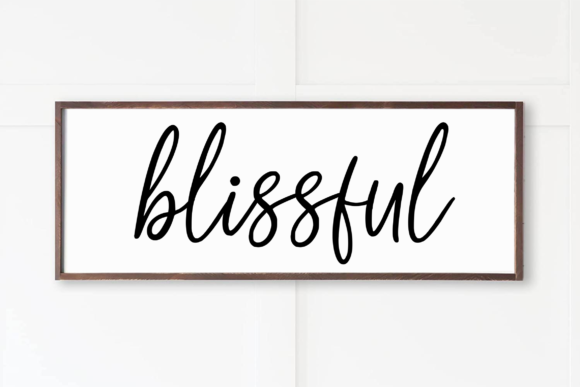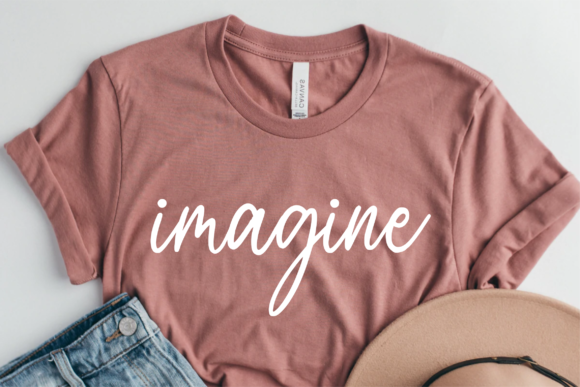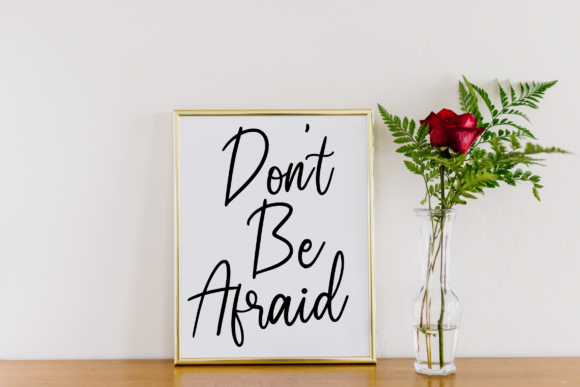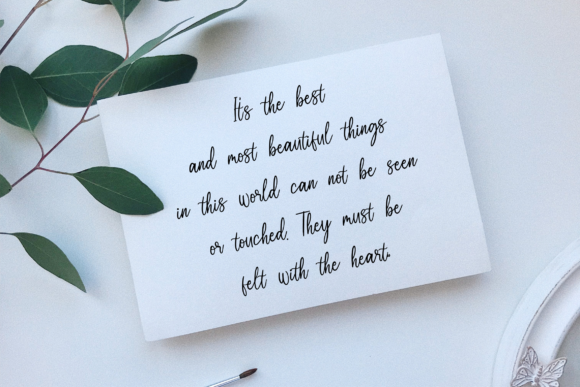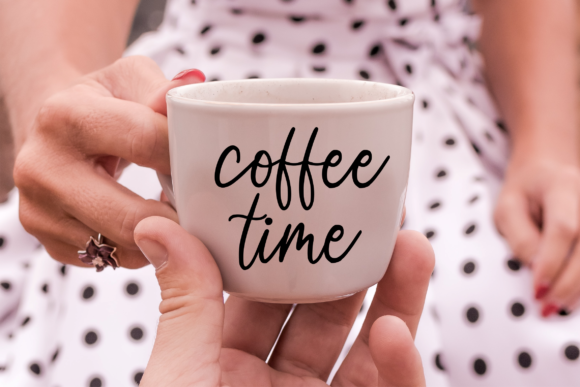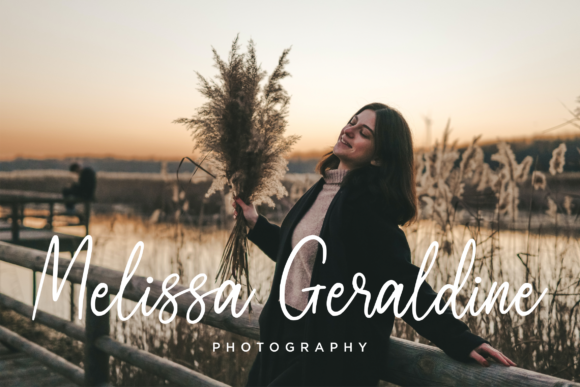
Introduction to Peachbeary Font Font
Fonts play a crucial role in design, and the Peachbeary Font font is a typeface that brings both character and versatility to any project. Whether you’re working on a branding project, a website, or a print design, the Peachbeary Font font offers a unique style that can elevate your work.
Peachbeary is a superb handwritten font that will make your work stand out through its elegant and curvy lines.
It is perfect for product packaging, branding project, magazine covers, social media, wedding, or just used to express words above the background .
Key Features of Peachbeary Font Font
Why Choose Peachbeary Font Font?
The Peachbeary Font font is more than just a typeface – it’s a design tool that helps you communicate your message with style and clarity. Its unique character set and versatile design make it suitable for a wide range of applications, from elegant invitations to bold headlines.
With its carefully crafted letterforms and balanced proportions, the Peachbeary Font font ensures readability and visual appeal across all mediums.
What makes Peachbeary Font font special?
The Peachbeary Font font stands out with its unique design, exceptional readability, and versatility across various design applications.